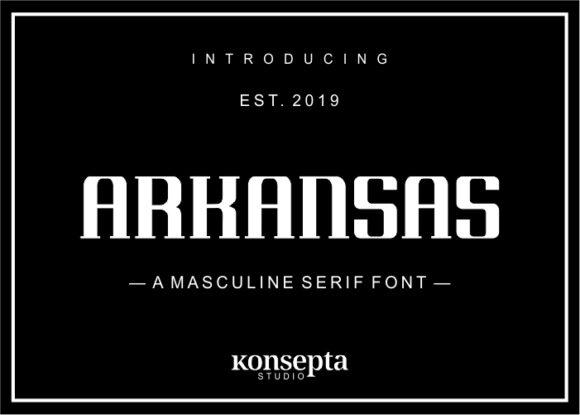
The Arkansas Font: A Masculine Serif for Your Design Projects
I’ll never forget the time I was working on a project for a client’s band, a group of rugged musicians who wanted a logo that reflected their manly persona. As I scrolled through font after font, nothing seemed quite right – until I stumbled upon the Arkansas font. Its unique blend of stability, conservatism, and sportiness instantly resonated with the band’s vibe. If you’re a designer, crafter, or creative hobbyist looking for a font that exudes masculinity and versatility, you’re in the right place!
An Honest Review of the Arkansas Font
- ✨ The Arkansas font has a distinctive, manly look that’s perfect for designs that require a touch of ruggedness.
- ✅ Its serif design makes it highly legible, even at smaller font sizes.
- ✅ The font’s vintage feel adds a sense of nostalgia and timelessness to any design.
- ✅ It’s incredibly versatile, suitable for everything from logotypes and headlines to music projects and more.
While the Arkansas font is an excellent choice for many design projects, there are a few things to keep in mind:
- 🤔 The font’s bold, masculine look might not be the best fit for designs that require a more delicate or feminine touch.
- ⚠️ As with any serif font, it may not be the most suitable choice for digital displays, especially at very small sizes.
The Designer Inspiration Behind Arkansas Font
The Arkansas font was designed with the intention of creating a typeface that embodies a sense of rugged masculinity, stability, and conservatism. Inspired by classic serif fonts, the designer aimed to craft a font that would be both vintage and sporty, suitable for a wide range of design projects. While the font’s exact origins may be unclear, its unique personality has captured the hearts of designers and crafters alike.
Q: What type of projects is the Arkansas font best suited for?
A: The Arkansas font is versatile and can be used for various design projects, including music projects, logotypes, newspaper or magazine headlines, and more.
Q: Is the Arkansas font suitable for digital displays?
A: While the Arkansas font can be used for digital displays, its serif design may not be the most suitable choice for very small font sizes or low-resolution screens.